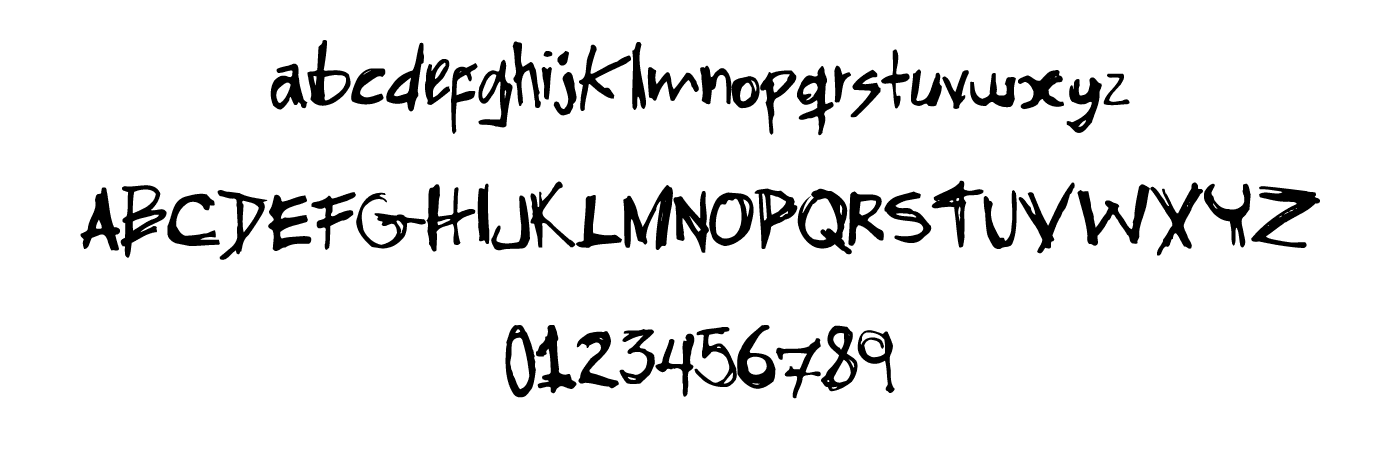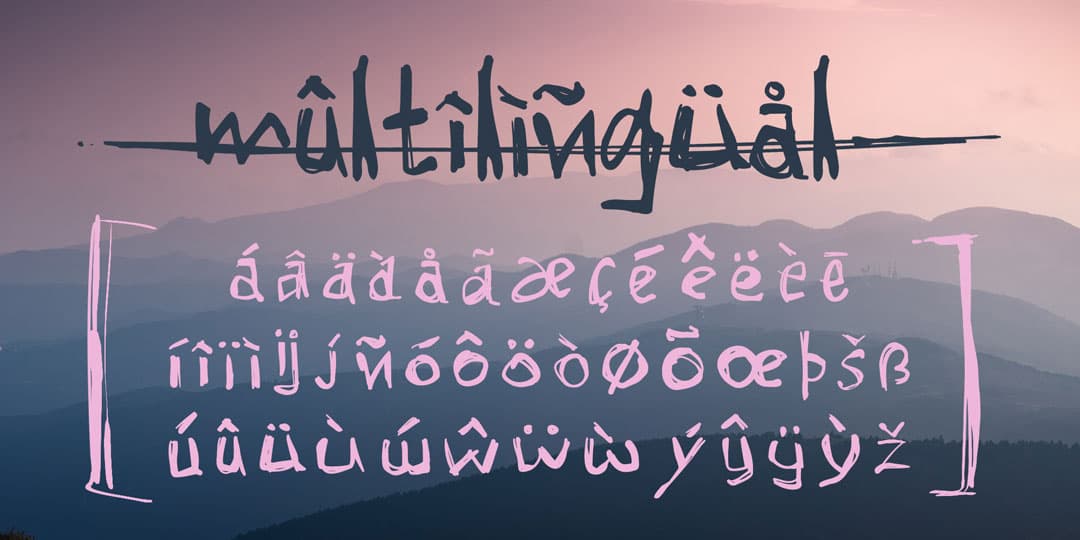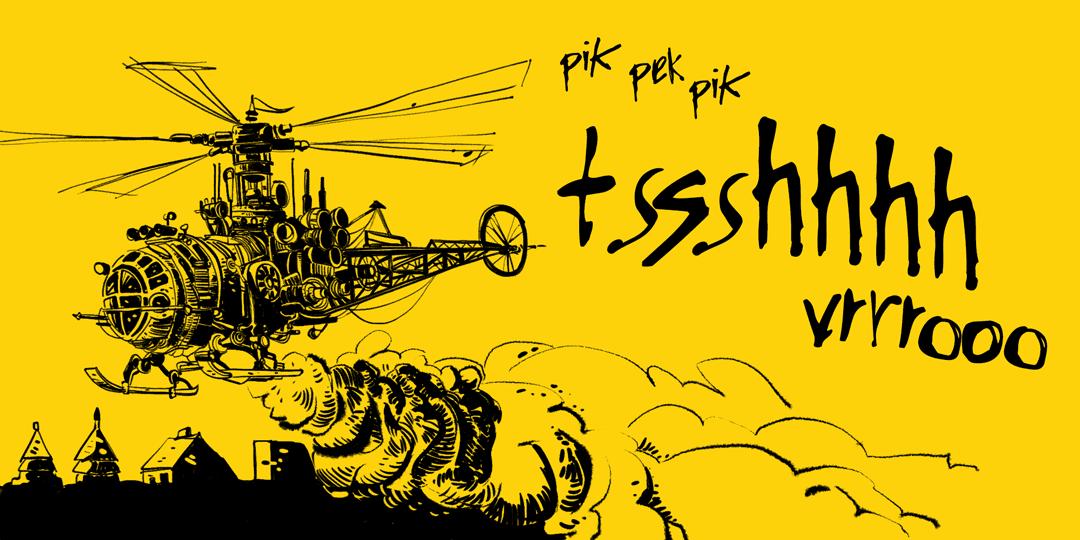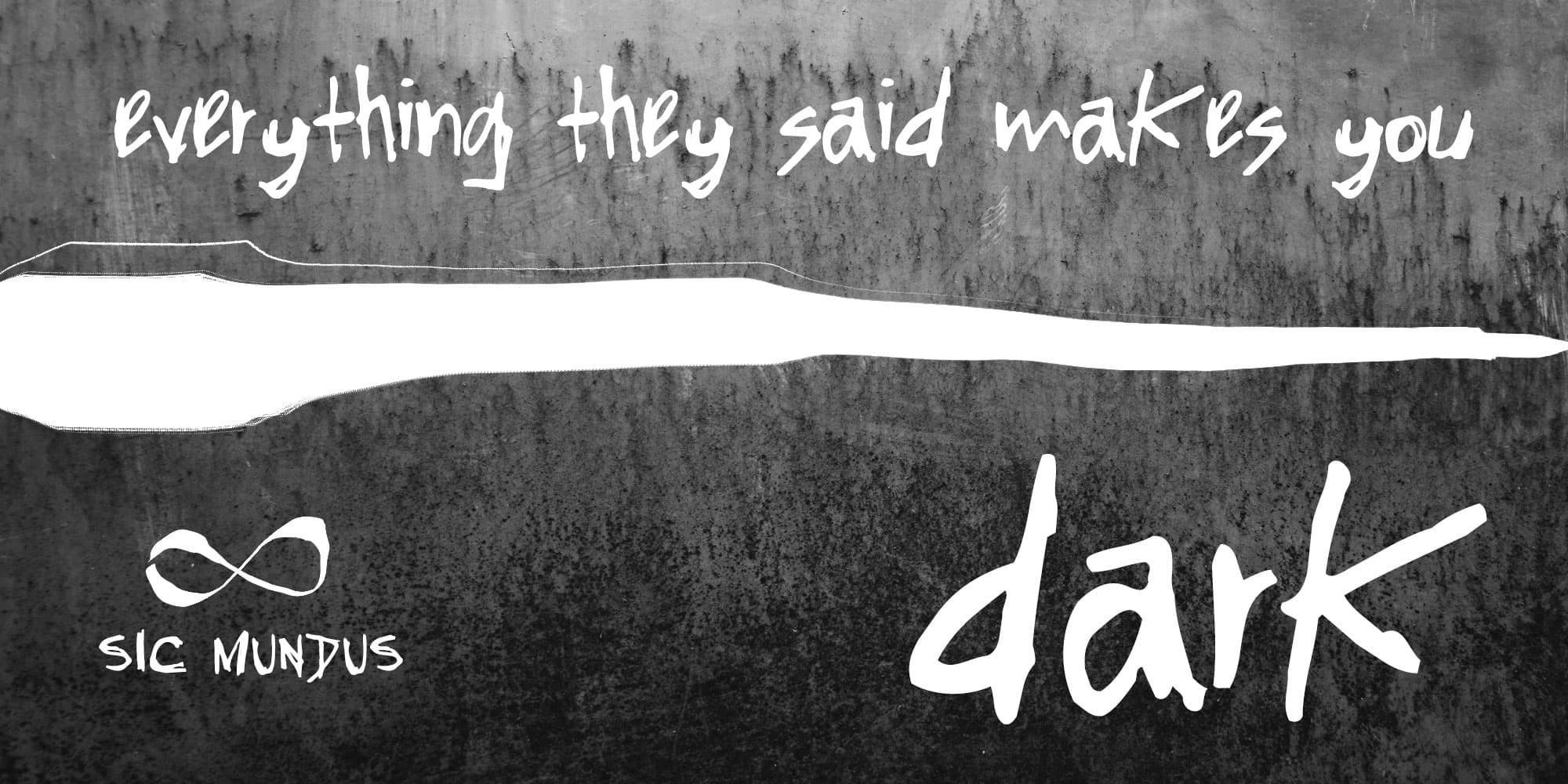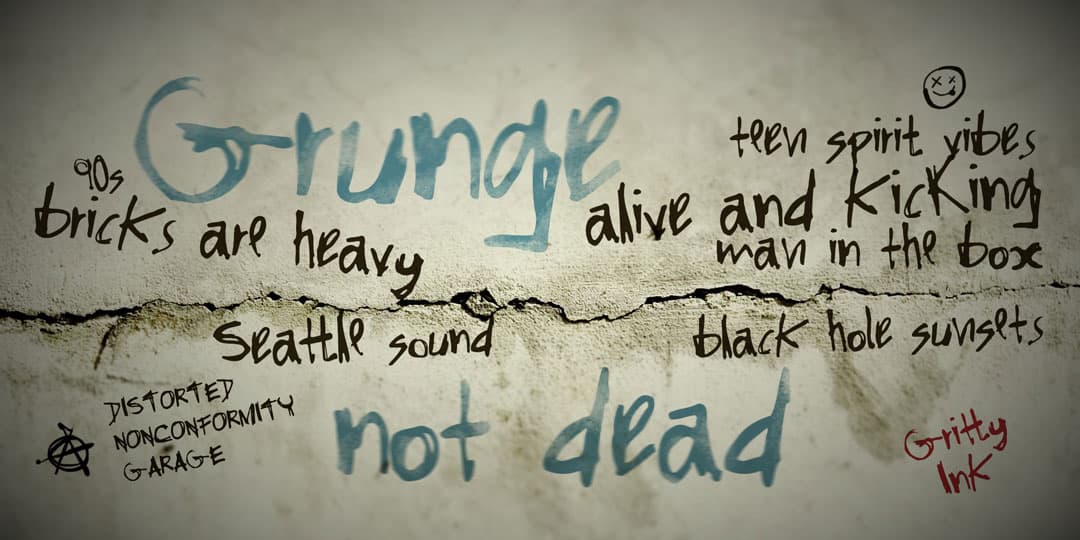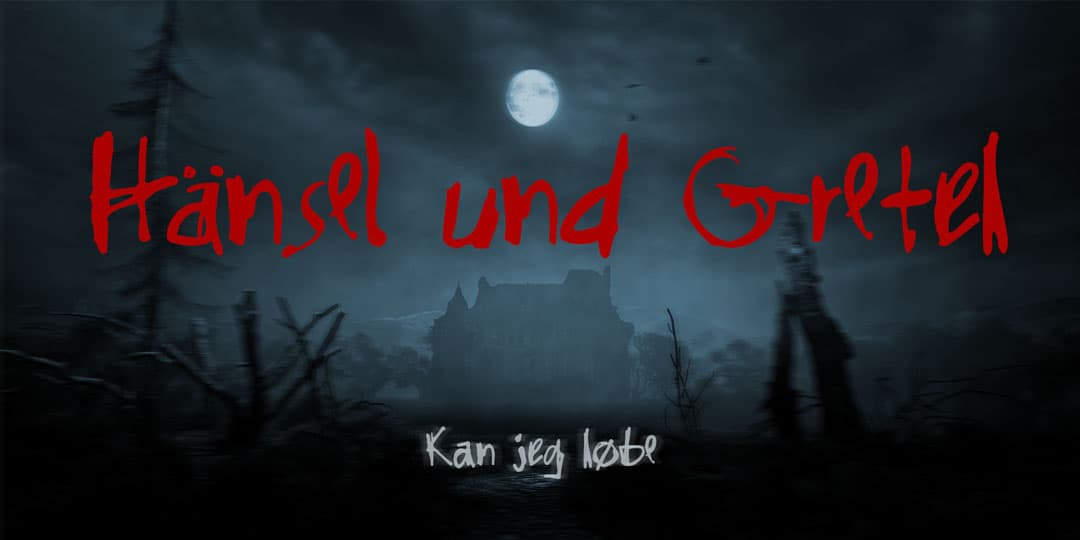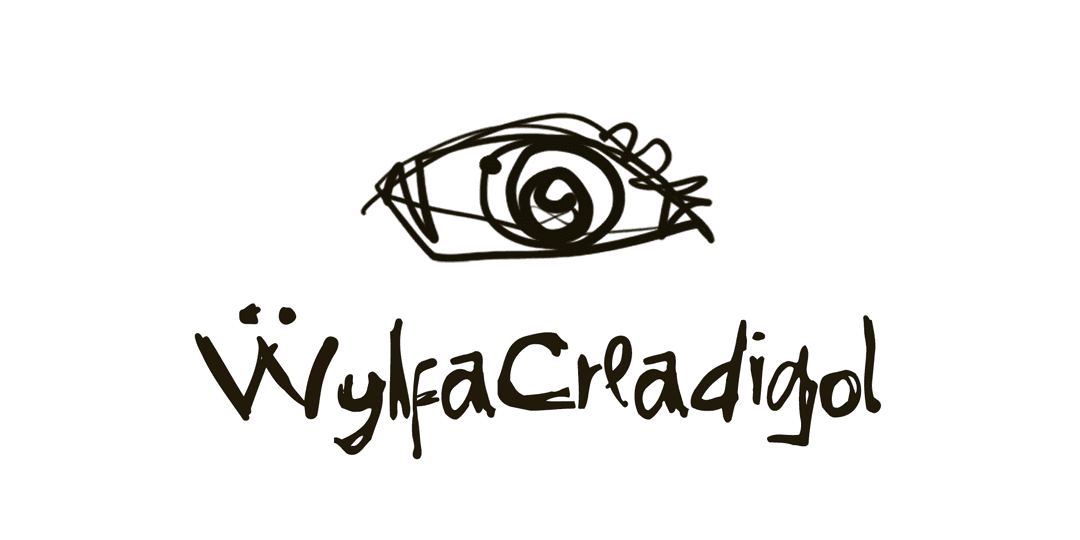
Font Gritty Ink
Introducing Gritty Ink – a font that screams rebellion and defiance with every stroke, embracing the raw energy of punk rock and the gritty aesthetic of 90's grunge with its authentic and handcrafted typography. It adds a bold touch to any graphic piece, with irregular edges and uneven lines that capture the DIY spirit of these cultures. Pair it with bold graphics and distressed textures for an unmistakably rebellious look. Including alternate glyphs and ligatures, Gritty Ink offers diverse customization possibilities. Embrace the chaos and unleash your creativity with this bold and defiant typeface.